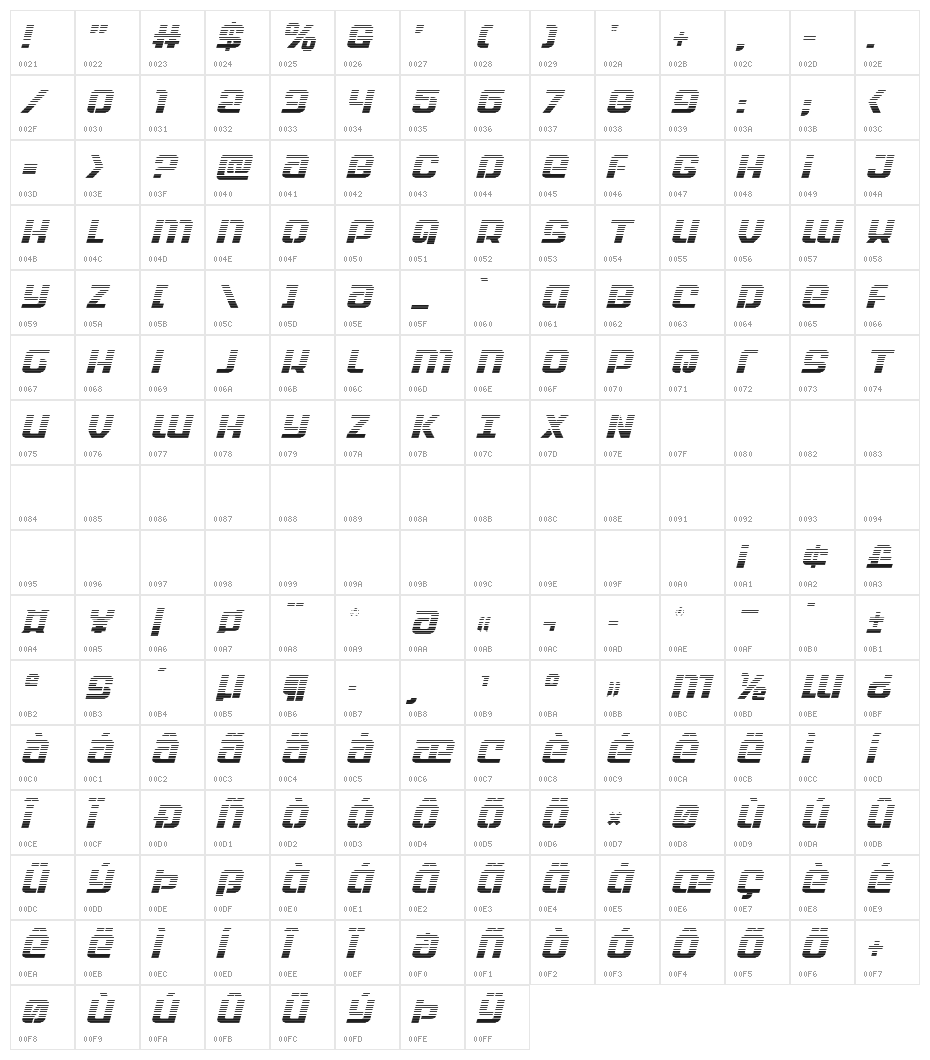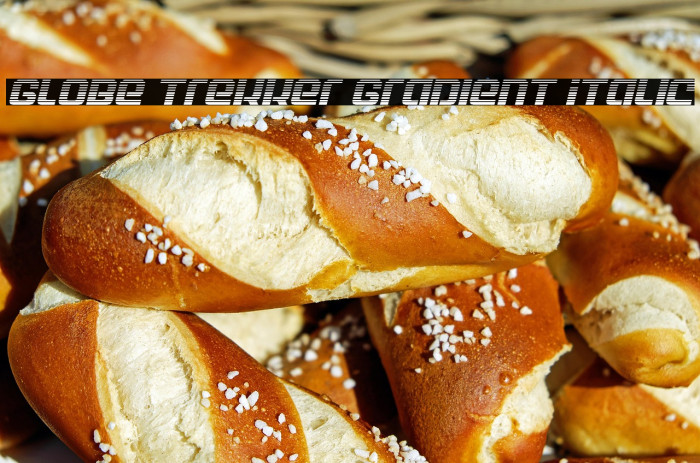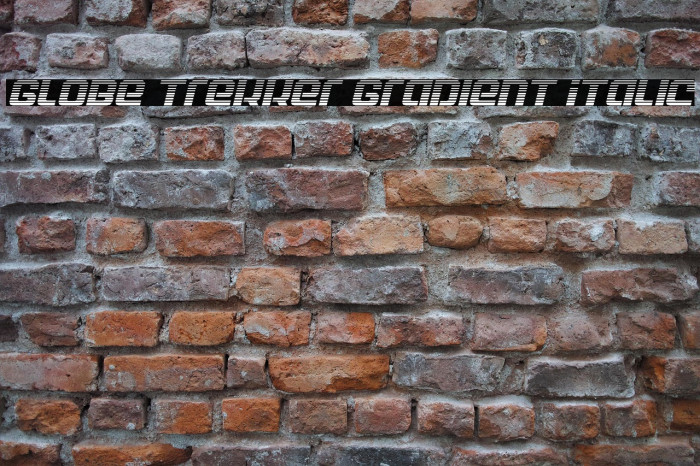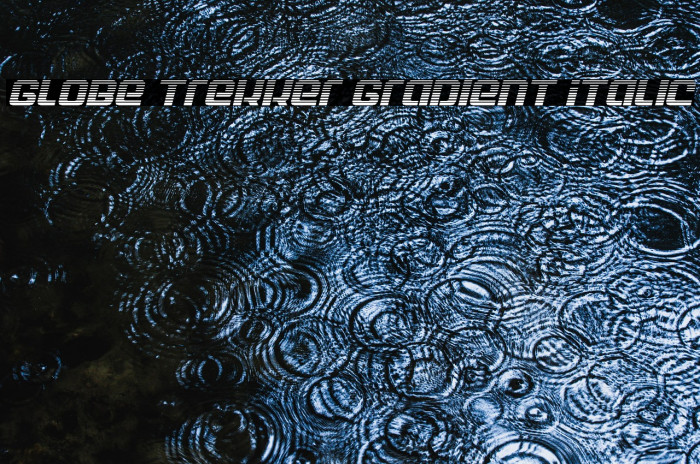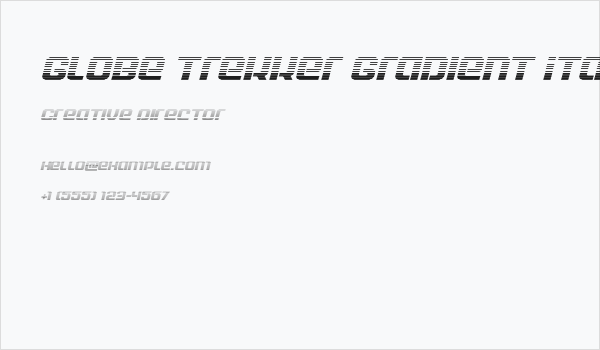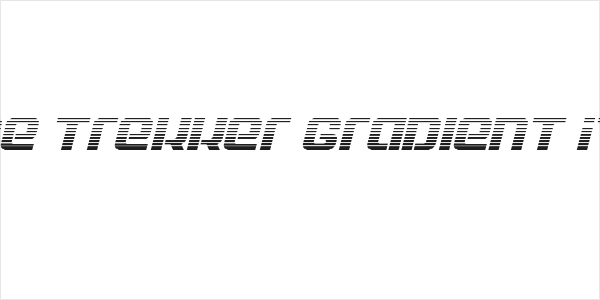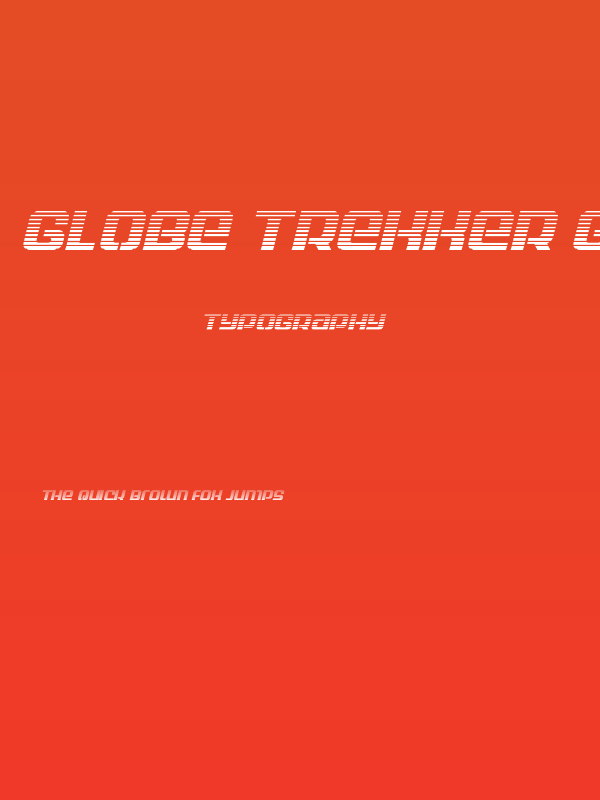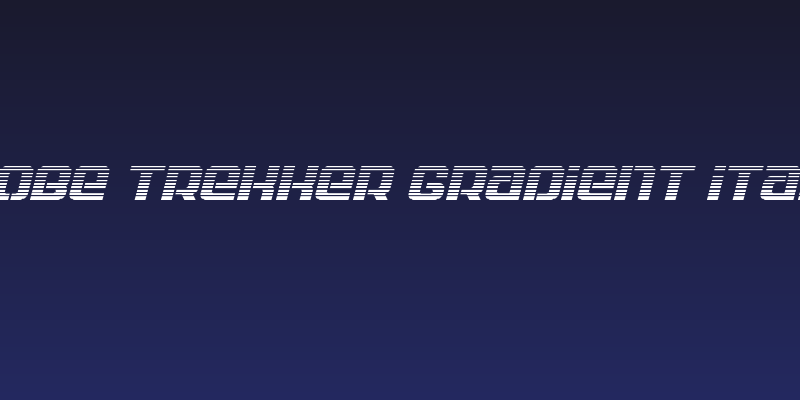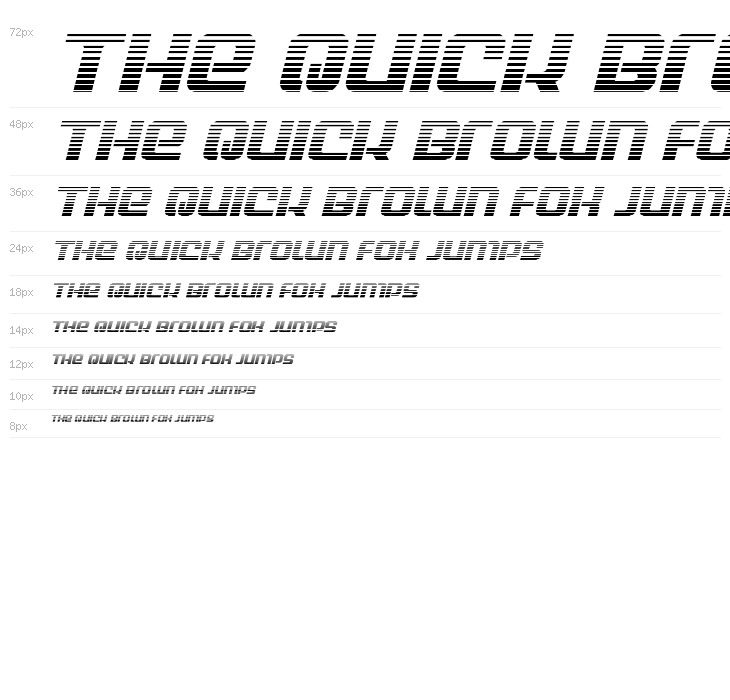
Globe Trekker Gradient Italic Font
Globe Trekker Gradient Italic Description
This font features a dynamic and futuristic design with a gradient effect that creates a sense of movement and speed. The italicized style adds a sleek and modern touch, making it ideal for projects that require a bold and eye-catching appearance. The characters are composed of horizontal lines that vary in thickness, giving the font a unique striped look. This design element enhances the visual interest and makes it stand out in any application. The font includes a full set of uppercase and lowercase letters, numbers, and a variety of special characters, ensuring versatility in its use.
| Overall Style | Futuristic, Modern |
| Proposed Projects | Ideal for technology branding, sports team logos, futuristic posters, and video game titles. |